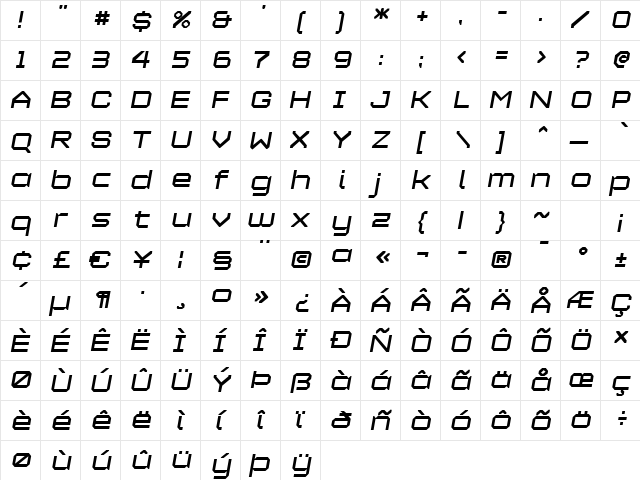
Maetl Oblique
| Foundry | YouWorkForThem |
| Designer | Michael Cina |
Design Context for Maetl Typeface
Maetl takes a measured approach to typography — its balanced proportions and neutral character make it a reliable workhorse for both digital and print work. Its italic angle brings a sense of urgency and motion to the letterforms.
Pro Tip: Try Maetl for annotation and caption copy alongside an upright companion — the contrast in angle creates a dynamic but ordered typographic system.